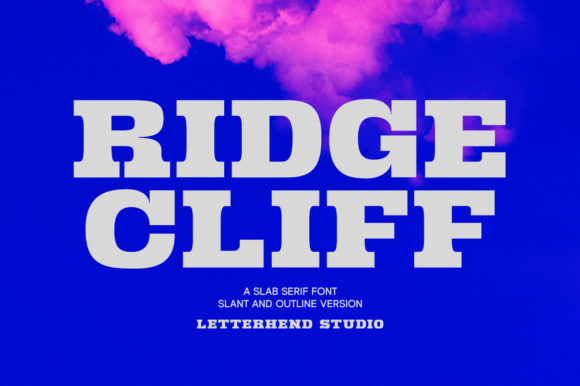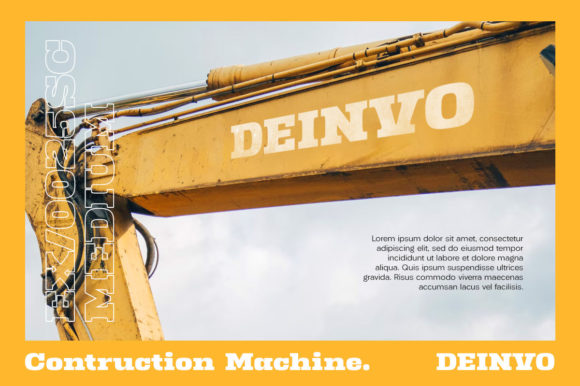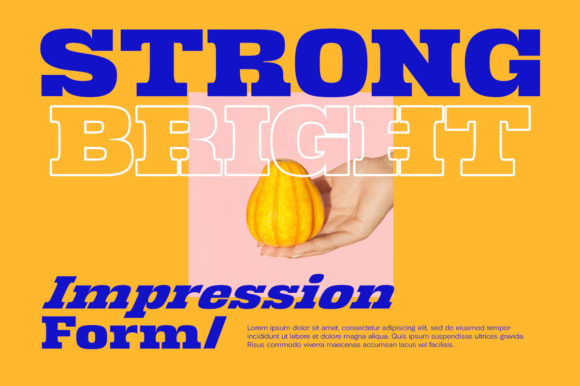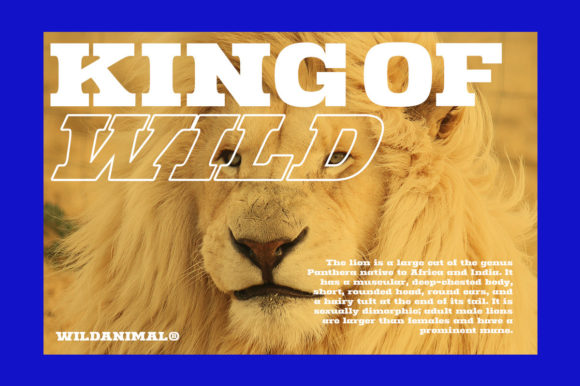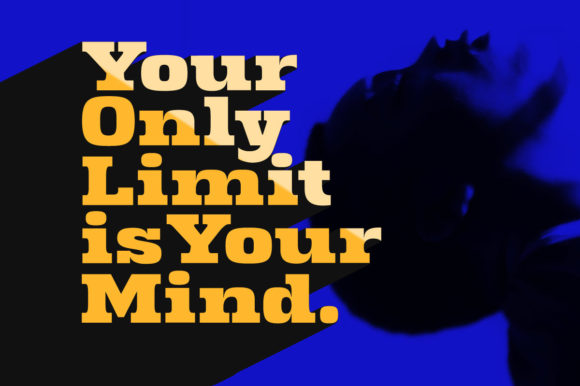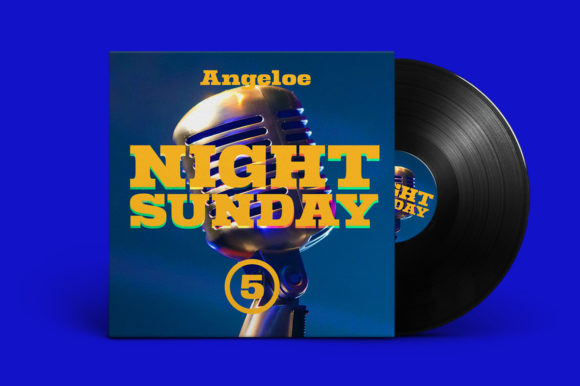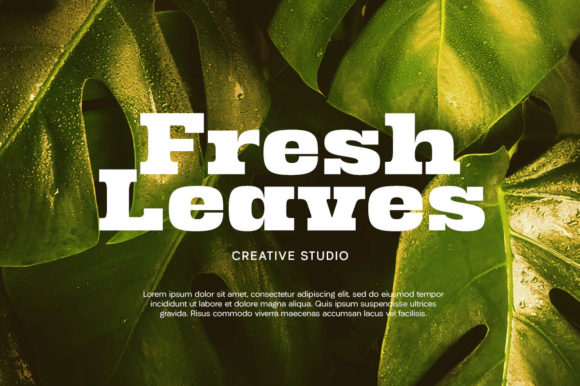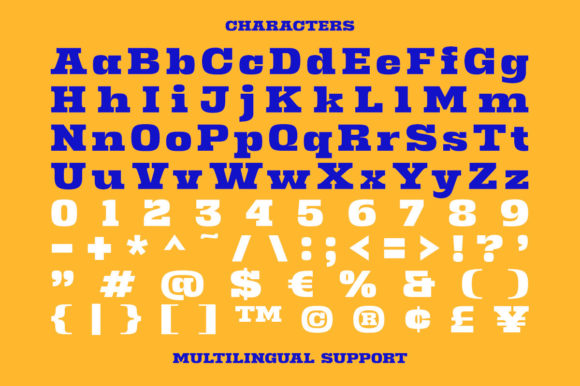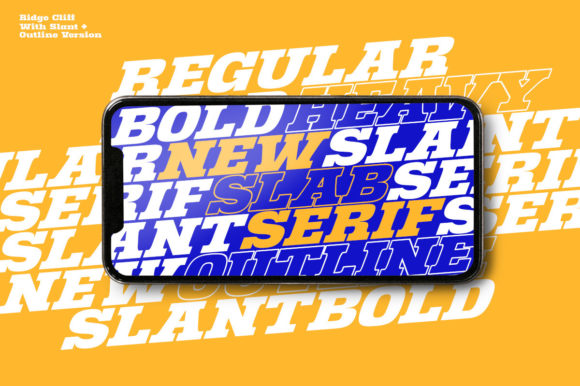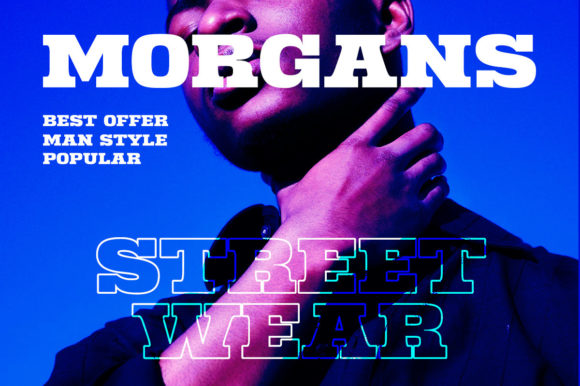
Ridge Cliff
Ridge Cliff: A Strong Slab Serif Typeface
Ridge Cliff is a cool, thick-lettered, and outlined slab serif typeface with a strong look and feel. This font is perfect for logos, headlines, signage, and various design applications such as invitations, labels, magazine covers, or book titles.
Key Features of Ridge Cliff
• Strong Design: Offers a bold and impactful look suitable for various applications.
• Slab Serif Structure: Features thick, rectangular serifs typical of slab serif fonts.
• Outlined Style: Provides a distinctive appearance that enhances visual appeal.
• Versatile Application: Ideal for both print and digital media projects.
Ideal Uses for Ridge Cliff
Ridge Cliff’s unique characteristics make it particularly well-suited for:
When incorporating Ridge Cliff into your designs, consider these tips:
• Use for headlines or short blocks of text to showcase its strong style.
• Utilize its outlined style across various creative projects to enhance visual appeal.
Ridge Cliff is an excellent choice for designers looking to add a strong slab serif font to their typographic toolkit. Its ability to enhance various design projects makes it stand out in the world of typography. Whether you’re working on logos, creating layouts for magazines, or developing content that requires a touch of boldness, Ridge Cliff offers the perfect blend of style and functionality.
Furthermore, Ridge Cliff’s unique design allows it to shine in various contexts. From vintage-inspired designs with a modern twist to more contemporary layouts that need a touch of uniqueness, this font can elevate your projects. Its striking yet functional style works particularly well in designs that require a thoughtful and engaging mood.
In conclusion, Ridge Cliff is a font that truly captures the essence of creativity and impact in typography. Its ability to work well in both minimalist projects and more elaborate layouts showcases its flexibility. For those looking to add a touch of unique charm to their work, Ridge Cliff can even enhance themed creations with its distinctive style. It’s the perfect choice for designers seeking to make a strong, stylish impact across a wide range of creative projects.